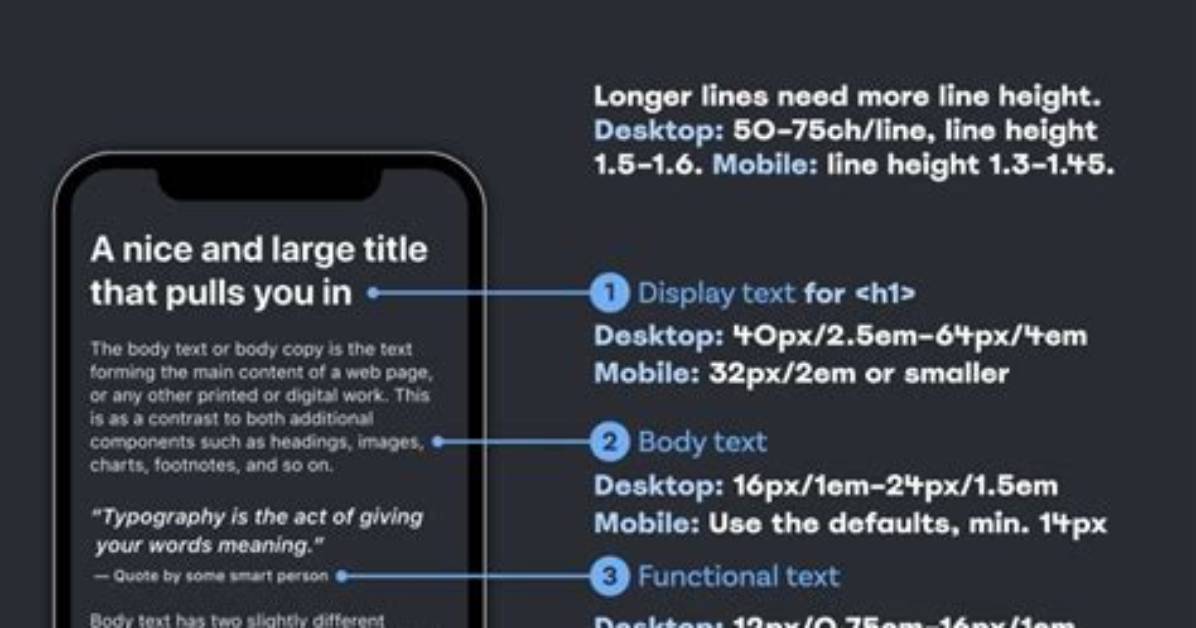
What Font Size Should an Assignment Be?
Use a Standard Font Like Times New Roman or Arial in 12 Point. . in This Manner, What Is the Standard Font Size for Assignments? Anywhere from 10 to 12 Points...
In this manner, what is the standard font size for assignments?
Anywhere from 10 to 12 points is the standard, default point size. But what you use might depend upod your instructor's preference. The font itself, as well as page margins and line spacing, will also make a difference.
Subsequently, question is, what font should university essays be in? Font. Your font should be Times New Roman or Arial. Don't use anything fancy, and avoid Calibri and Cambria. Even though Word has set these as the default fonts, they are generally not the preferred font to use at university.
Then, what font size should a report be?
In general, use a 'serif' font (such as 'Times New Roman'). They are more comfortable to read. Fonts should be a minimum of 12 point and 1.5 line spacing is recommended unless otherwise specified. Titles and headings may be in a bold 'sans serif' font (such as 'Ariel').
What font type and size should you use in Microsoft Word?
It is best practice to type word documents in font size 14, and no smaller than font size 12, to assist readers with visual impairments. Remember that no one font size will suit everyone. However, it should be easy to provide the document in an alternative font size upon request.